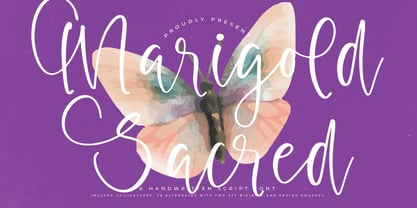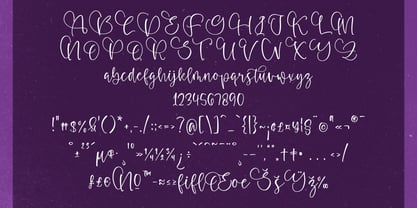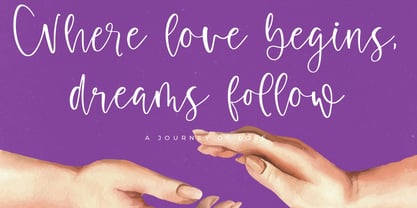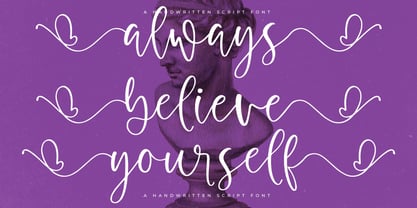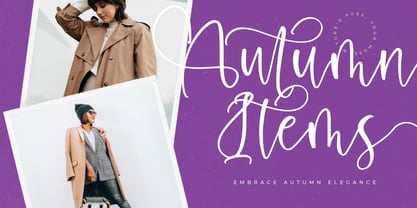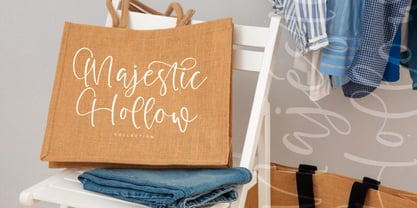
Marigold Sacred
The Marigold Sacred Font Family was designed by Heru Utama Putra and published by Letterena Studios. Marigold Sacred contains 2 styles and family package options. More about this family
Marigold Sacred – Handwritten Script Font , from Letterena, is a Luxury Script font, suitable for any projects such as: logos, branding projects, homeware designs, product packaging, mugs, quotes, posters, shopping bags, t-shirts, book covers, name card, invitation cards, greeting cards, label, photography, watermark, special events, and all your other luxury and beautiful projects that need a Luxury Script taste.